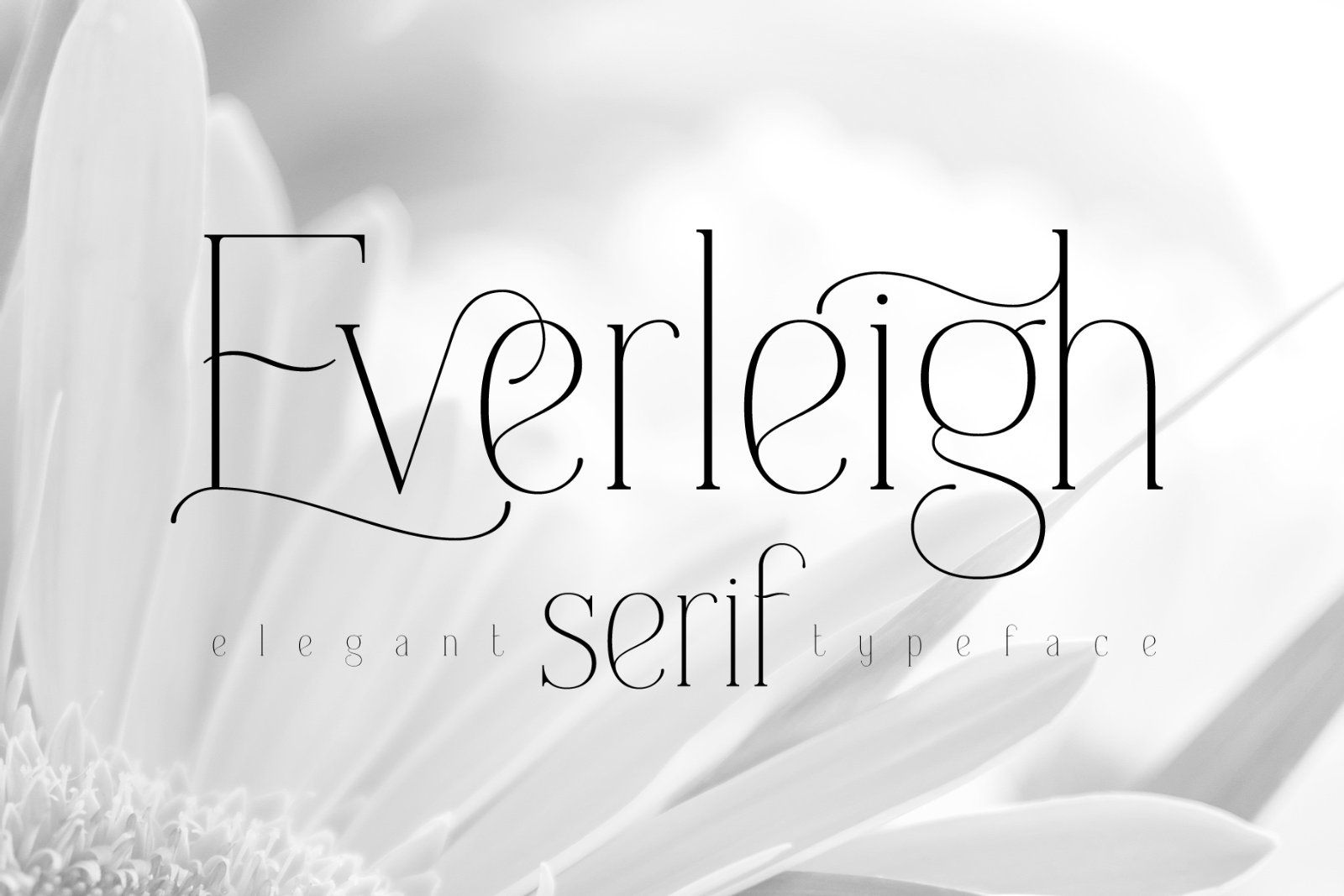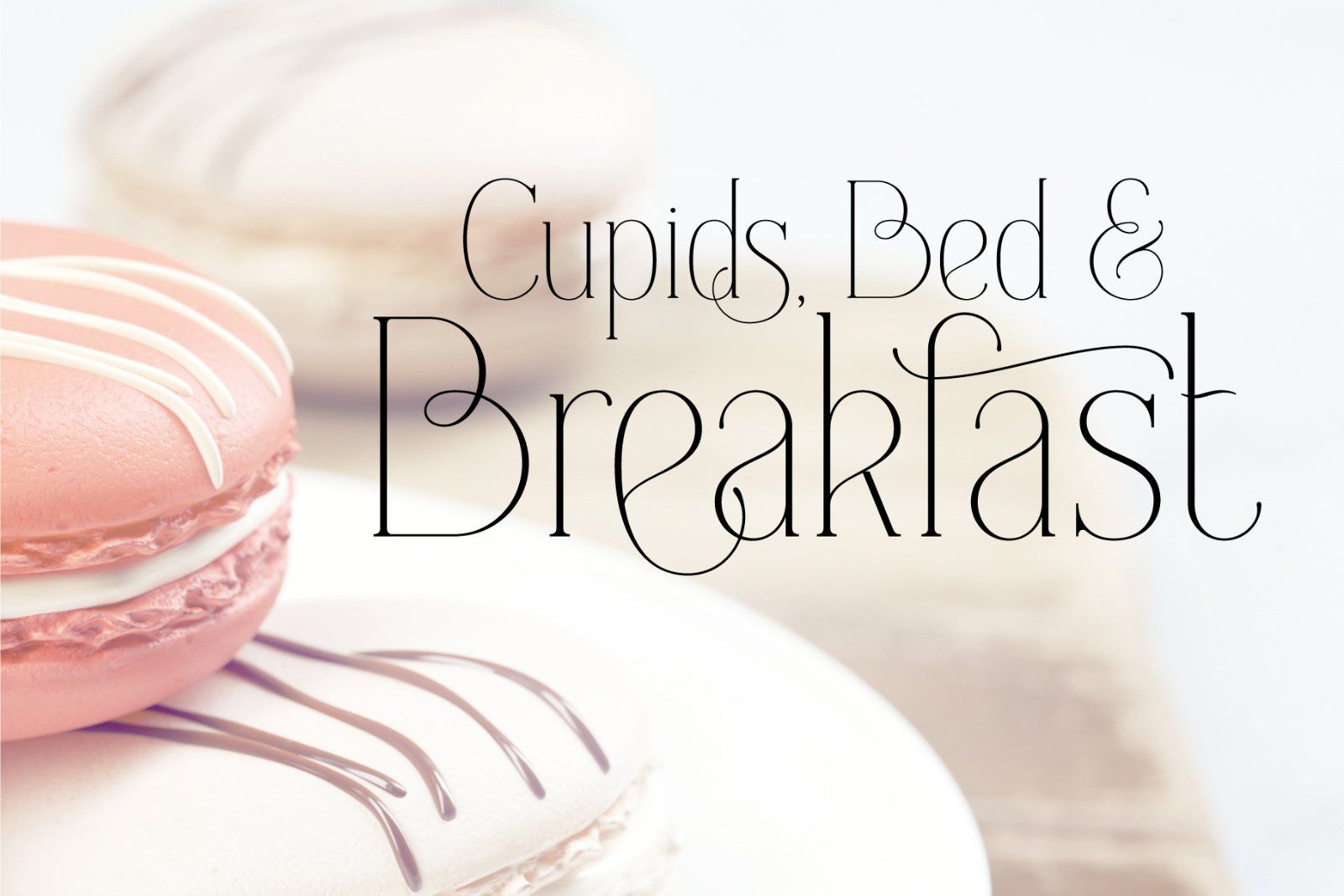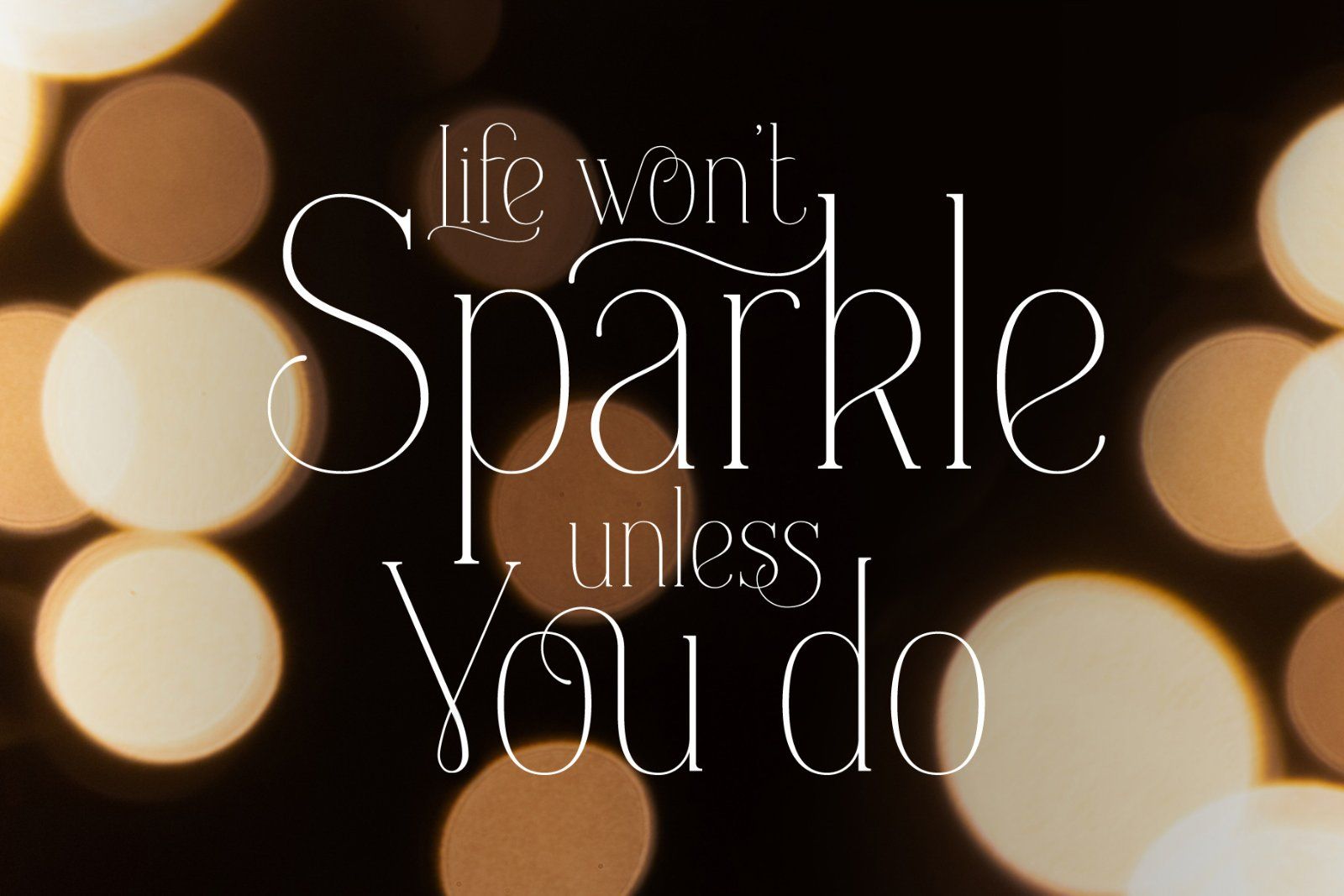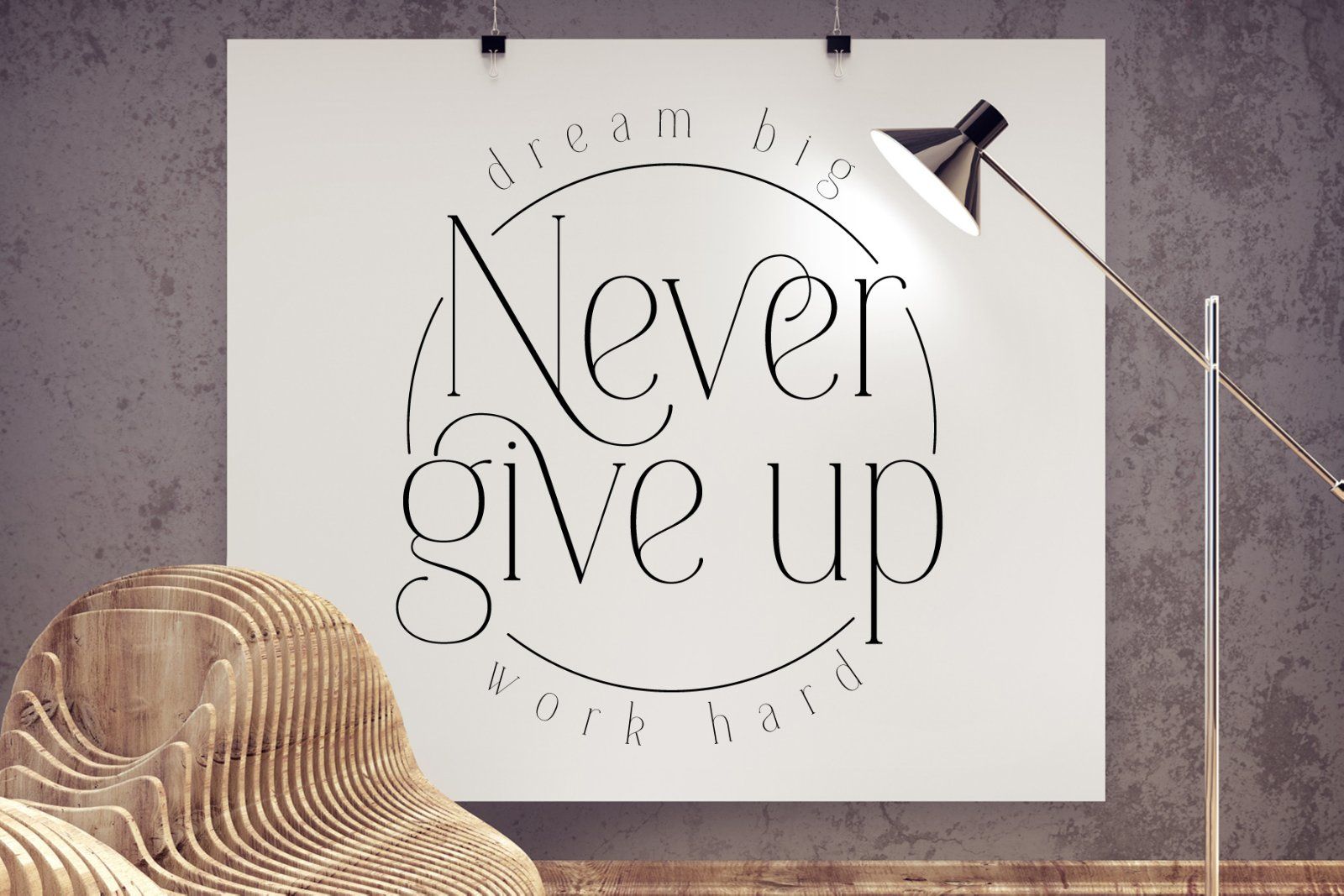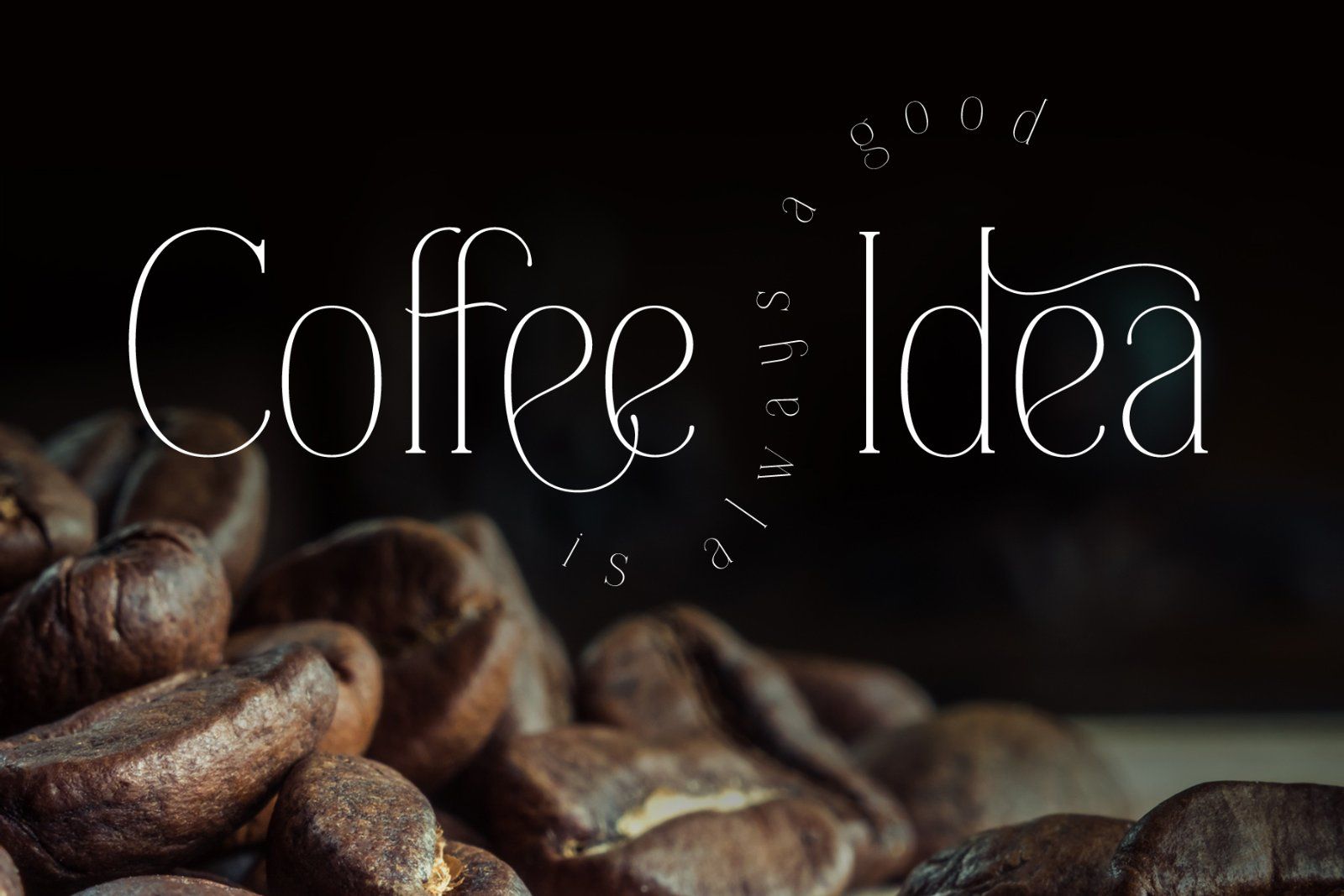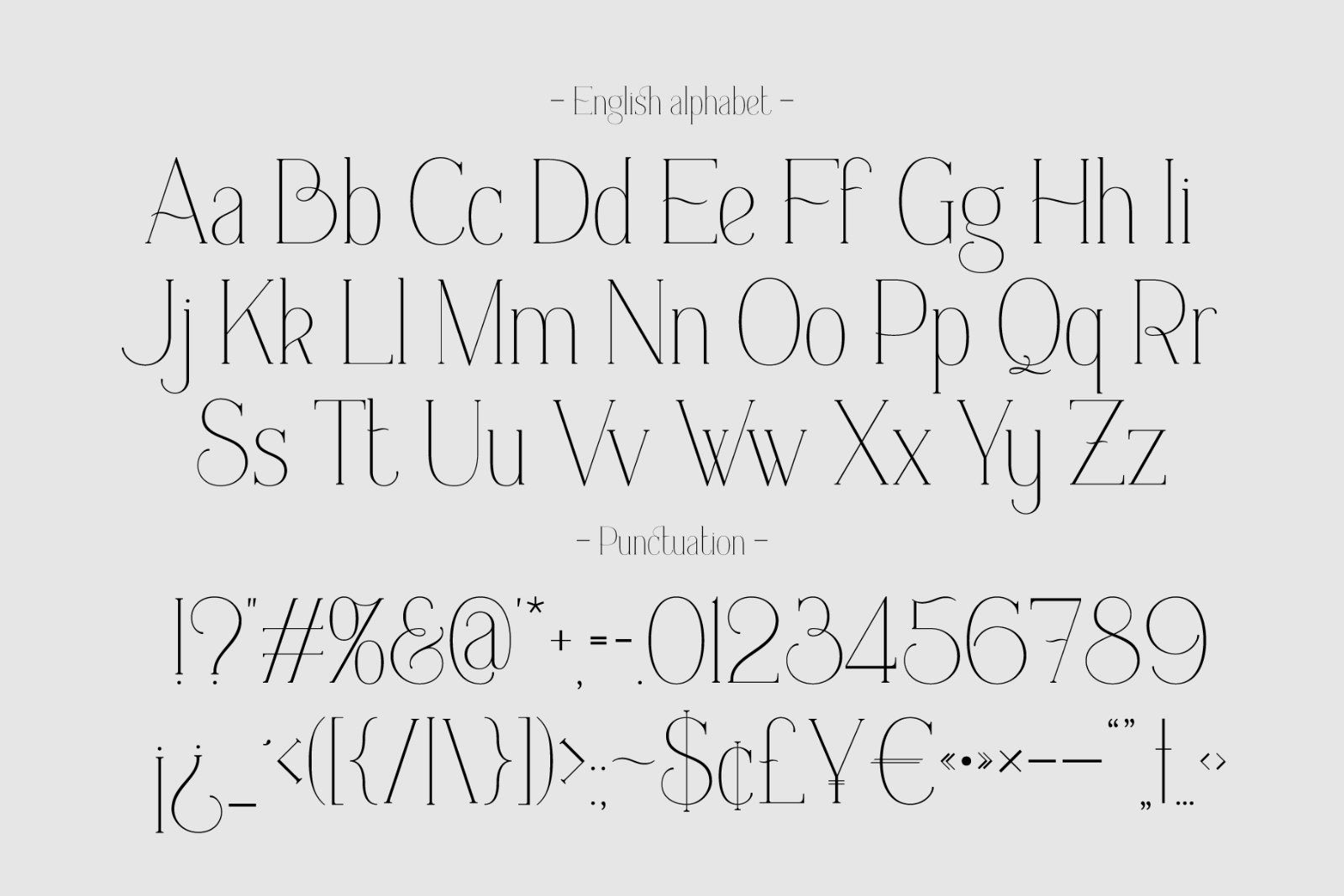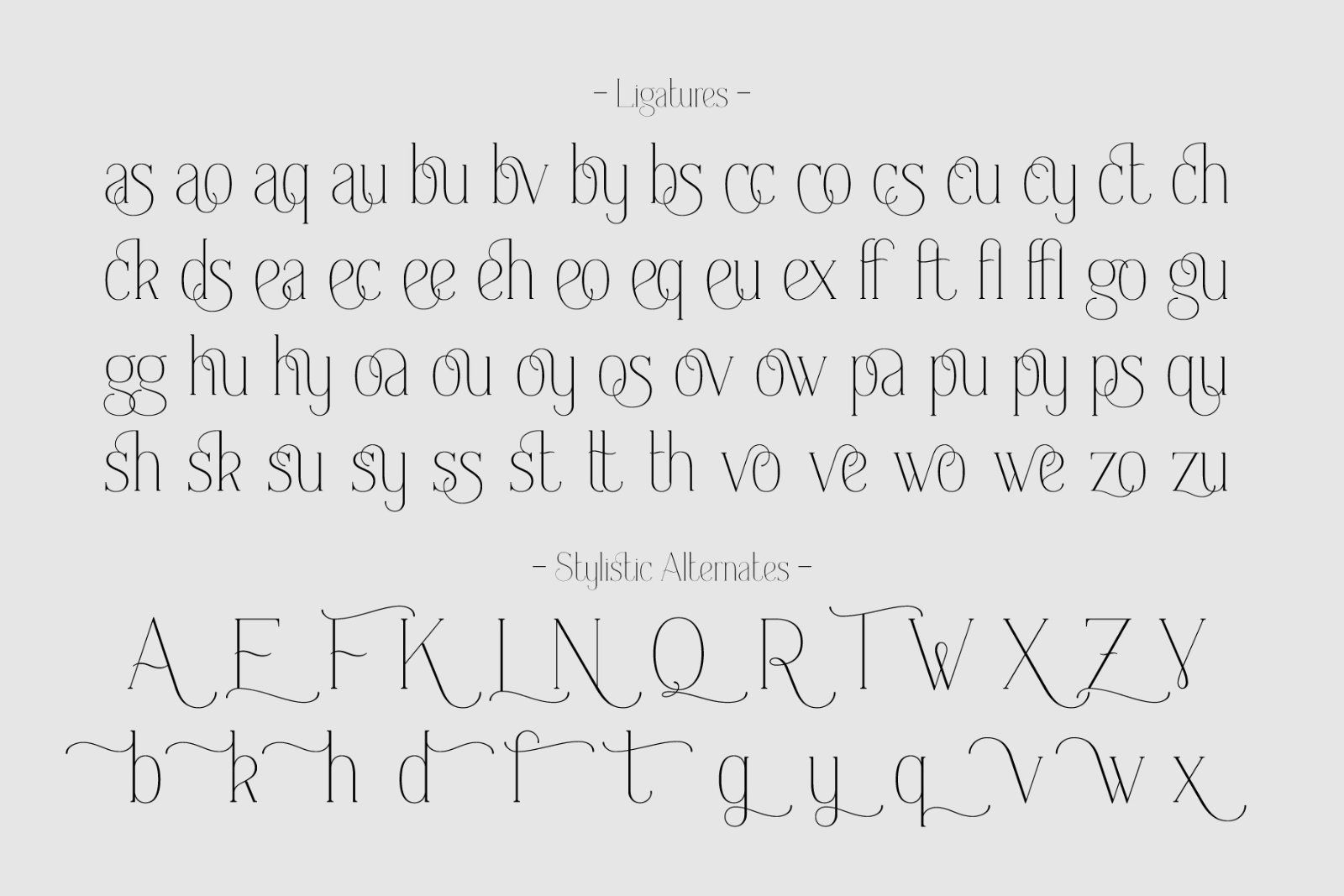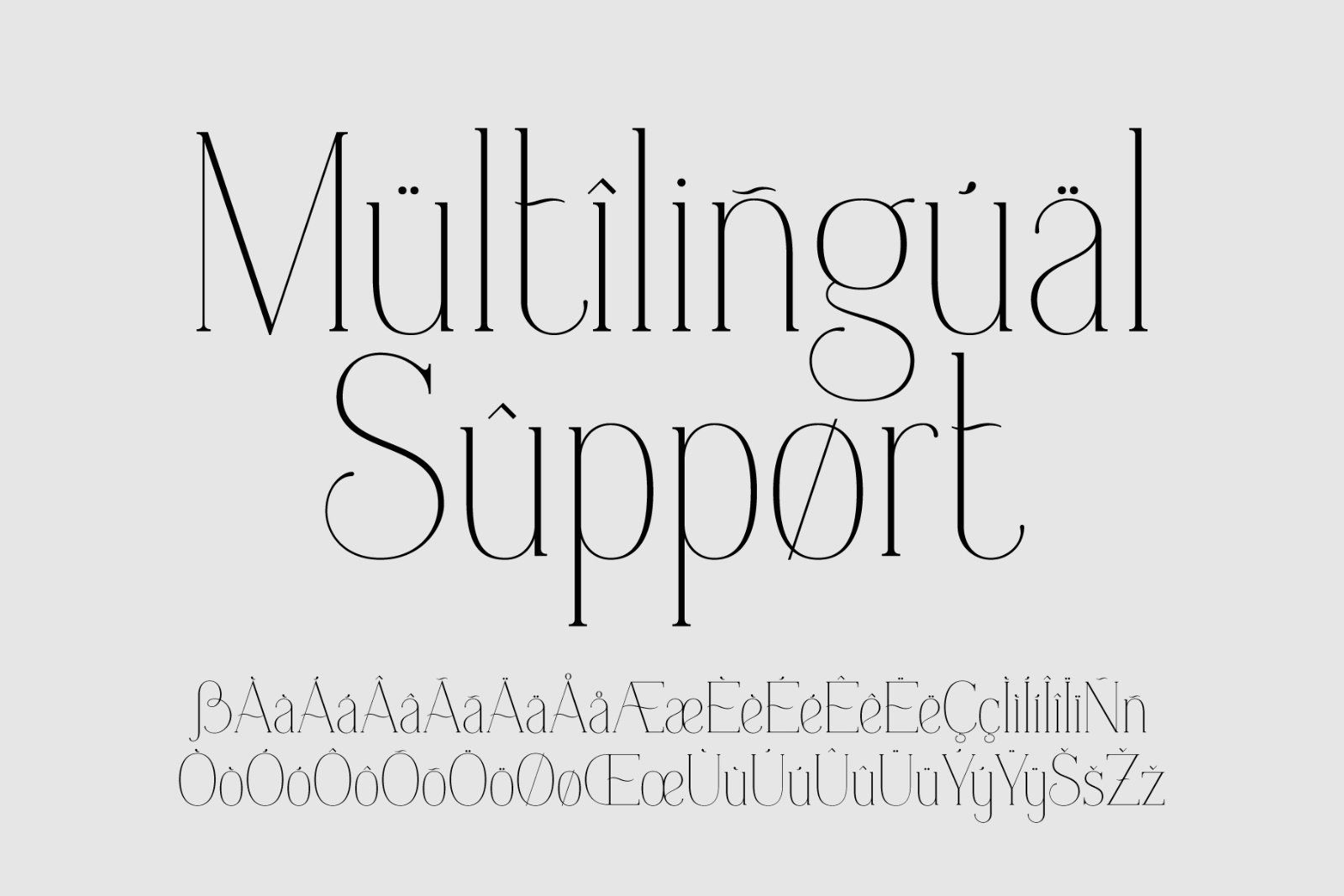
Hello! Introducing a classic font Everleigh Serif. It's an elegant thin typeface inspired by anique old school fonts. Lots of ligatures and stylistic alternates helps to create an authentic and original lettering compositions. Also this font has multilingual support, check out all available characters on the previews.